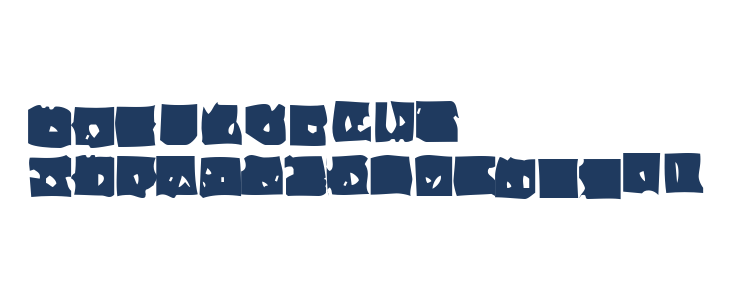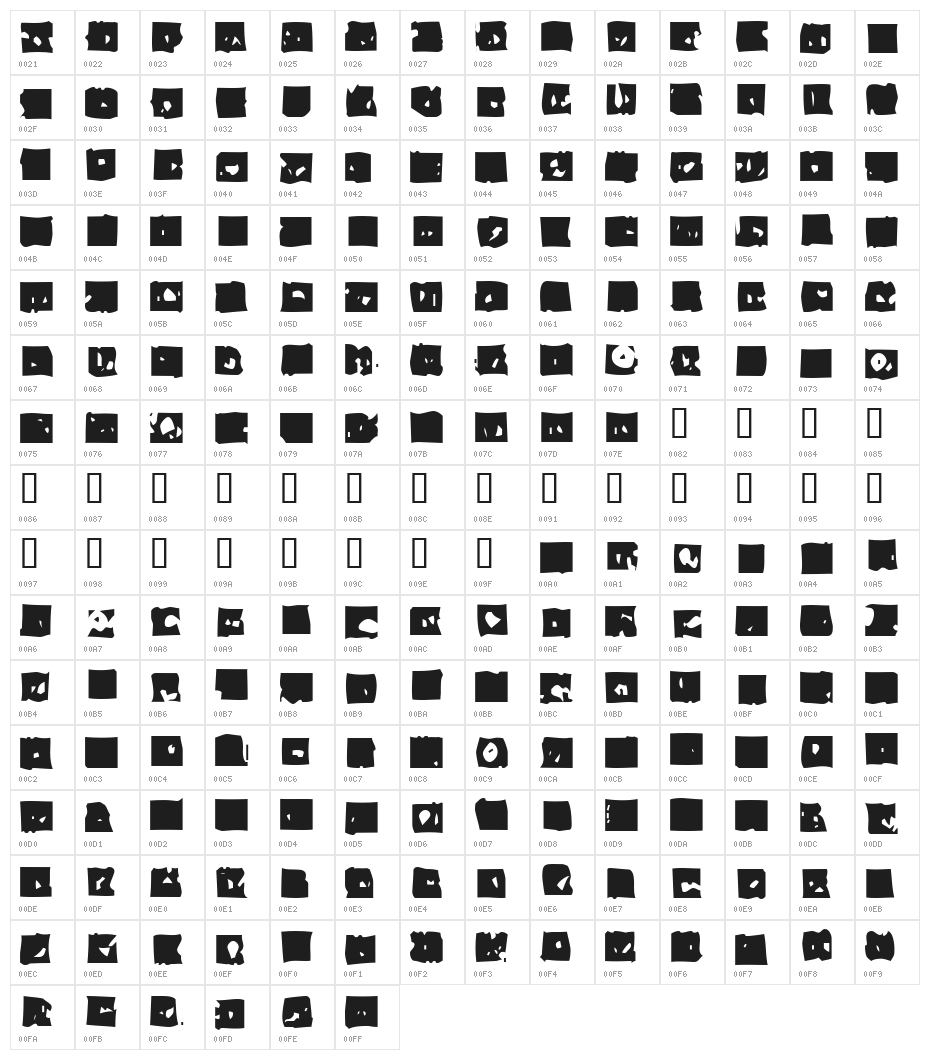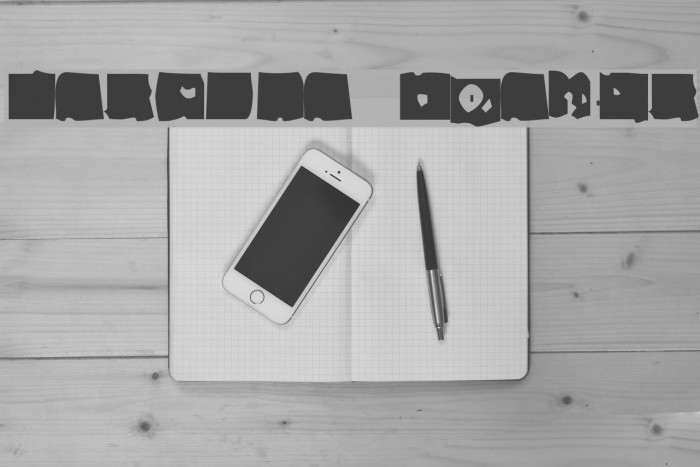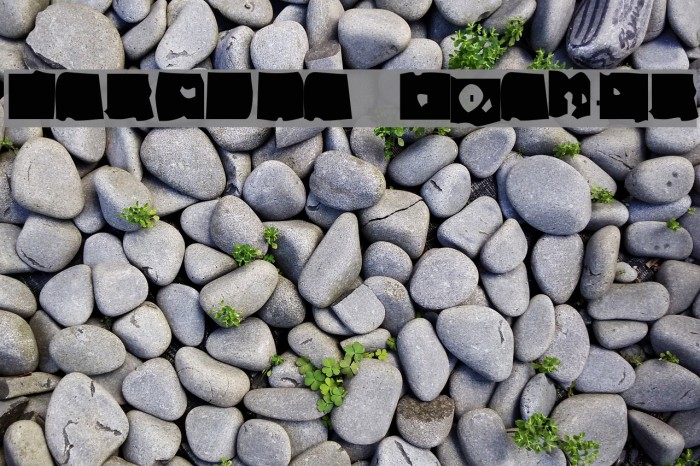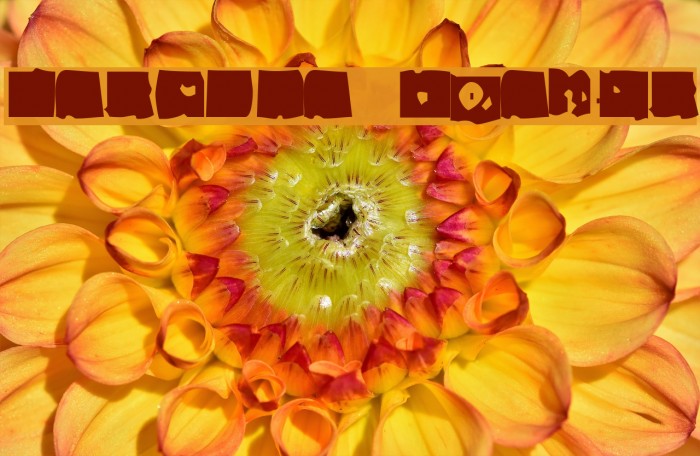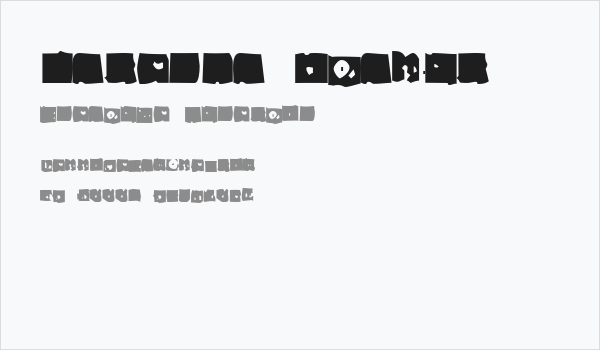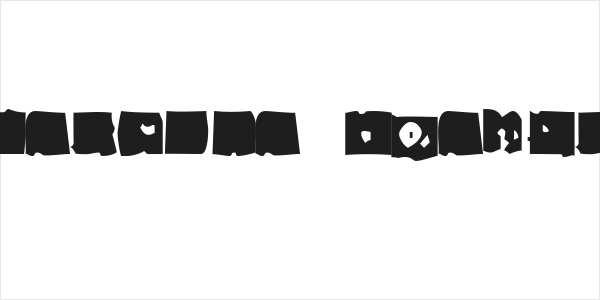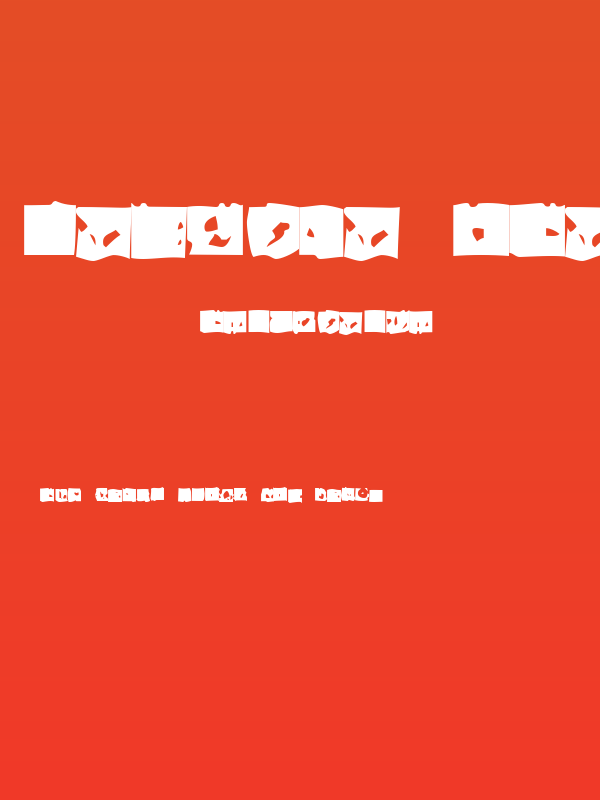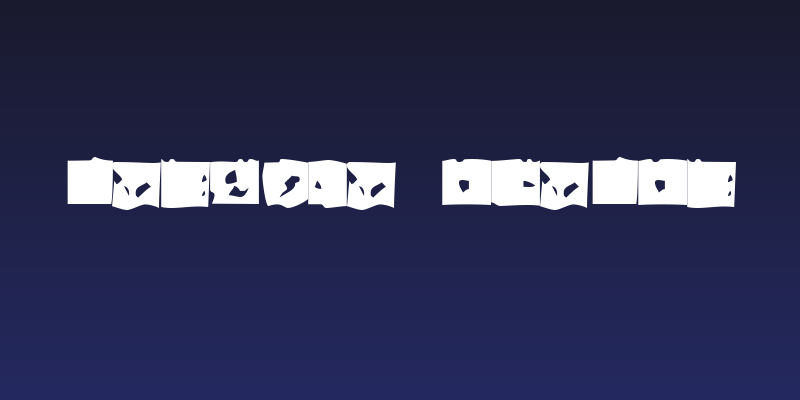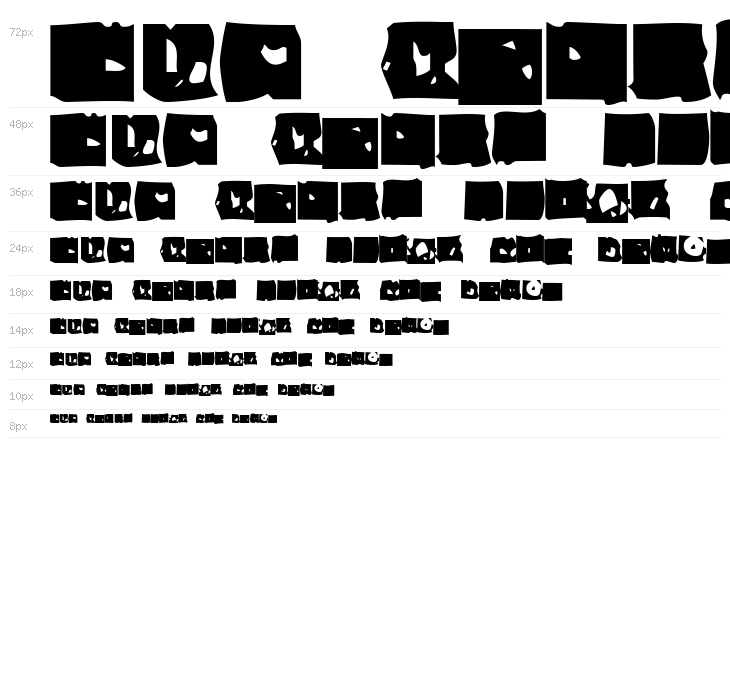
Lacerba Italic Font
Lacerba Italic Description
This font features a highly decorative and abstract style, with each character appearing as a unique, artistic form. The letters are heavily stylized, with exaggerated curves and angles that create a sense of movement and dynamism. The overall appearance is bold and eye-catching, making it suitable for creative and artistic projects. The characters are not uniform, with varying thicknesses and shapes that contribute to its distinctive look. This font is ideal for projects that require a strong visual impact and a touch of artistic flair.
| Proposed Projects | Ideal for artistic posters, album covers, creative branding, and unique logo designs. |